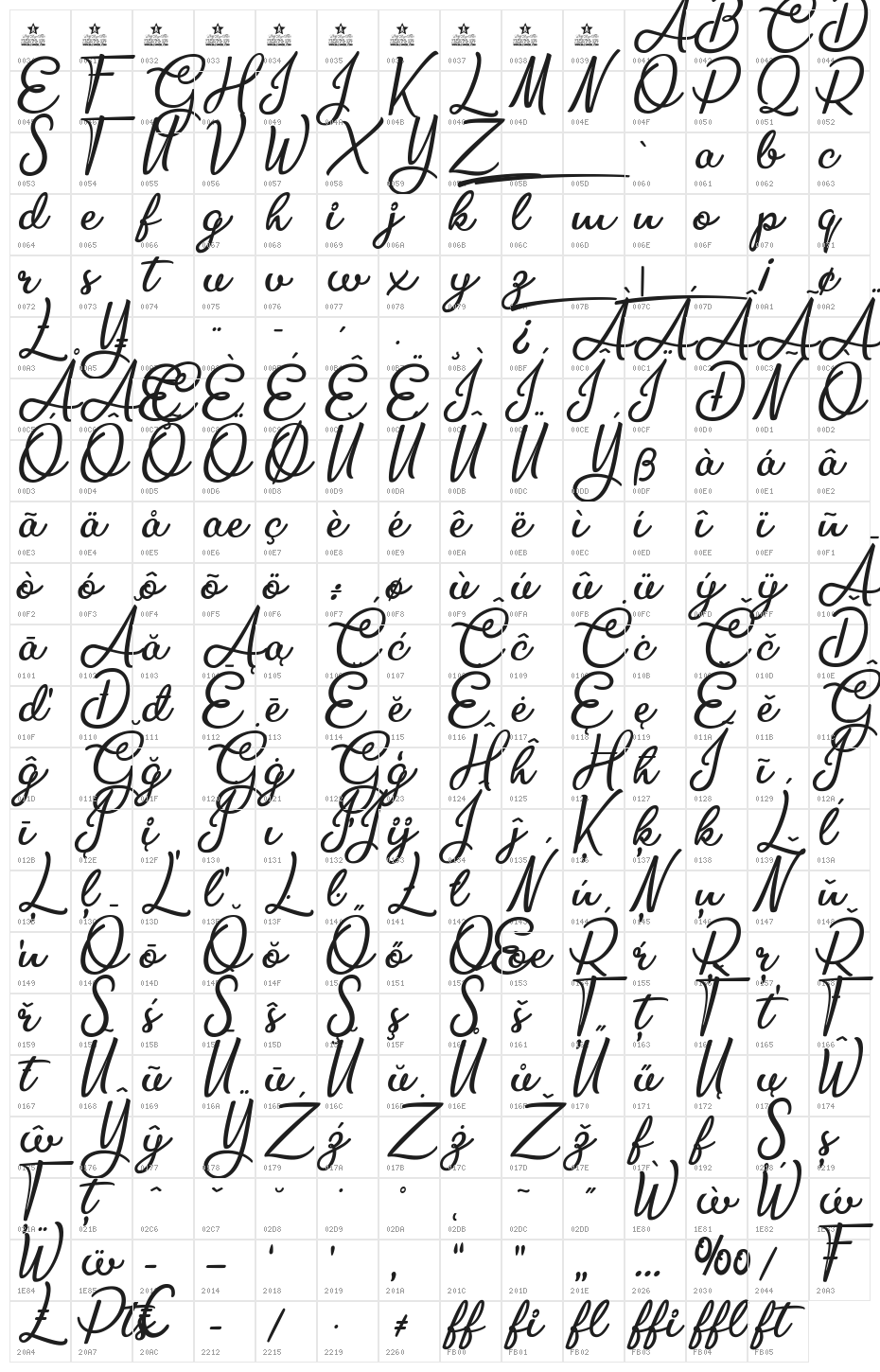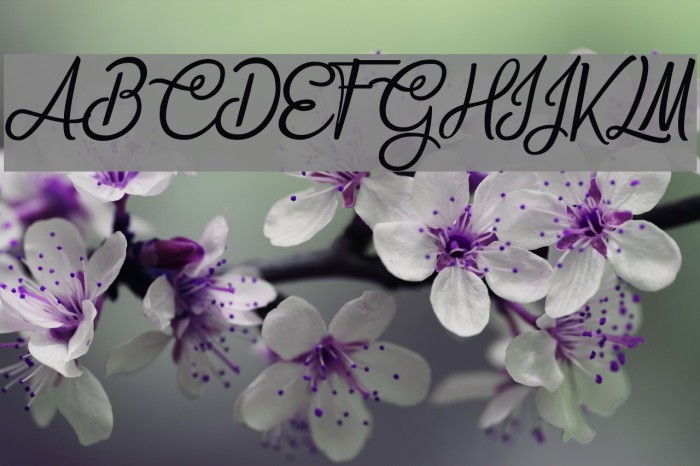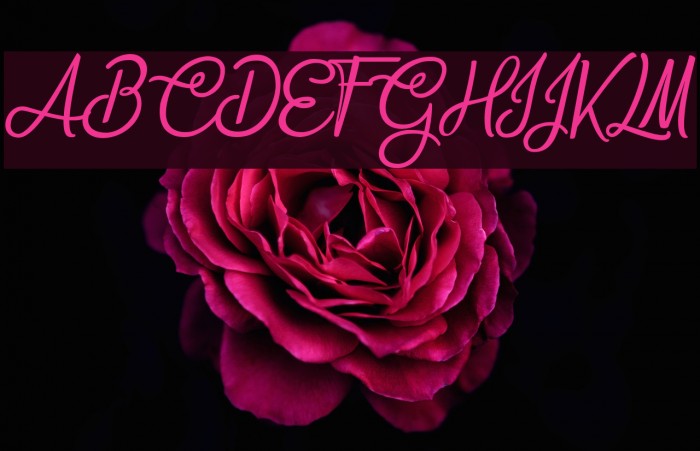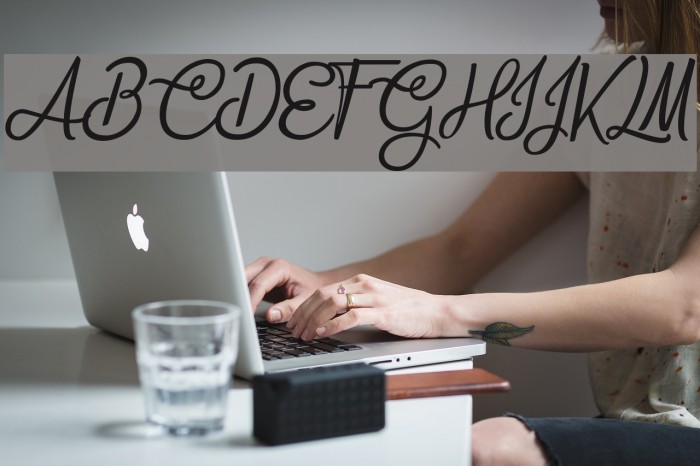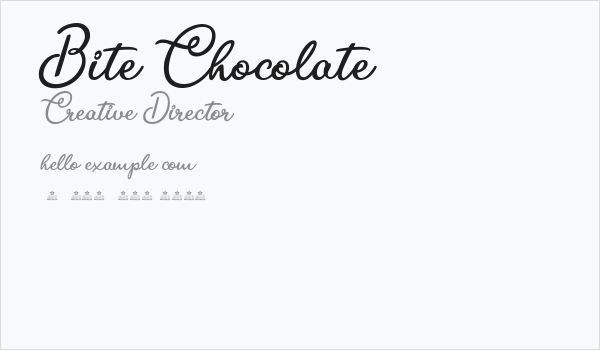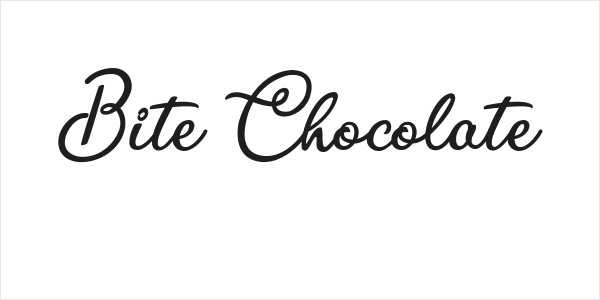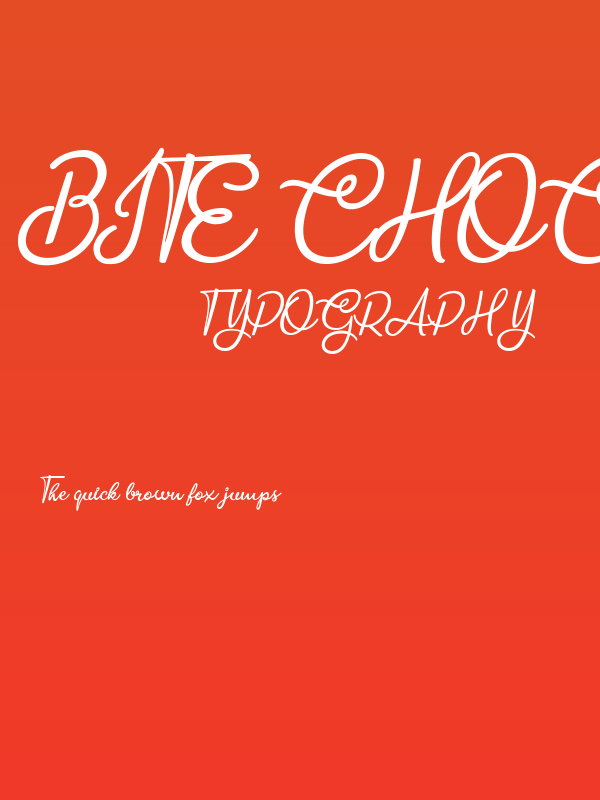
Bite Chocolate Font
Bite Chocolate Description
This font exhibits a flowing, cursive style that combines elegance with a touch of playfulness. The uppercase letters are characterized by their tall, sweeping ascenders and smooth, rounded forms, creating a sense of movement and grace. The lowercase letters maintain a consistent flow, with some characters featuring distinctive loops and flourishes that add to the font's charm. The overall appearance is both sophisticated and approachable, making it suitable for a variety of creative applications. The numerals and special characters are designed to match the script's fluidity, ensuring a cohesive look across all text elements.
| Overall Style | Elegant, Playful |
| Use Case | Headlines, Invitations, Branding |
| Proposed Projects | Ideal for wedding invitations, greeting cards, branding, and elegant packaging designs. |